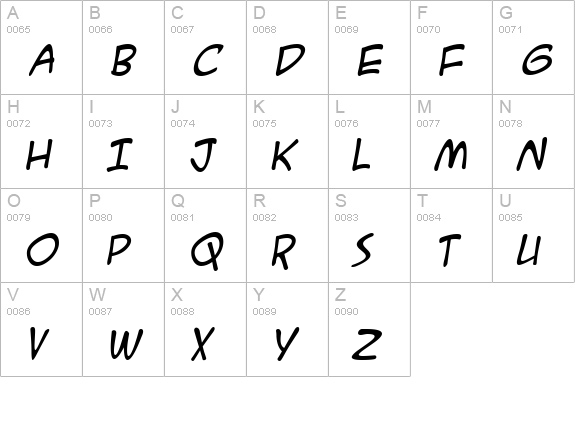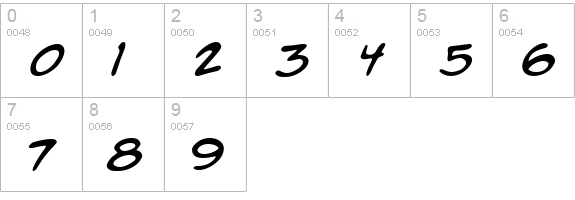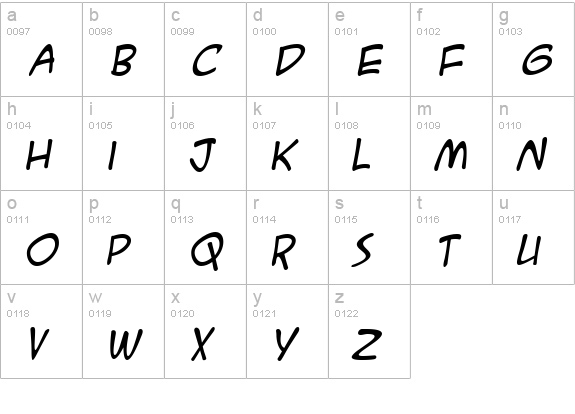
A.C.M.E. Secret Agent Italic Font Details
A.C.M.E. Secret Agent Italic is a distinctive, italic variant in the A.C.M.E. typeface family \xE2\x80\x94 well suited to design and typography projects.
Introducing the A.C.M.E. Secret Agent Italic font - a sleek and sophisticated typeface designed for secret agents and espionage enthusiasts alike. Its italicized design exudes mystery and intrigue, making it the perfect choice for covert missions and classified documents. The A.C.M.E. Secret Agent font is not only stylish, but also highly readable, ensuring that your top-secret messages are conveyed with clarity and precision. Best of all, this exclusive font is available for free download at FontsMarket.com. Simply visit the website to get your hands on this top-secret typeface and add a touch of espionage to your projects. Don't miss out on the opportunity to use the A.C.M.E. Secret Agent Italic font - your mission demands it!